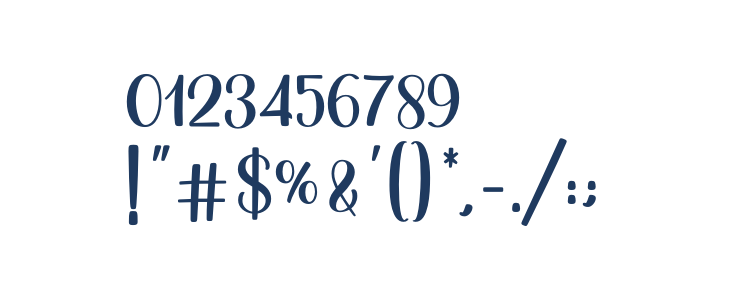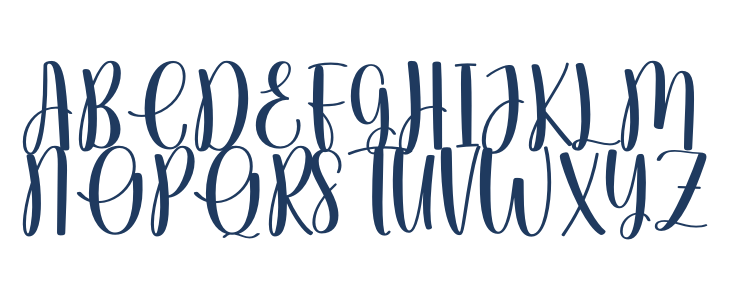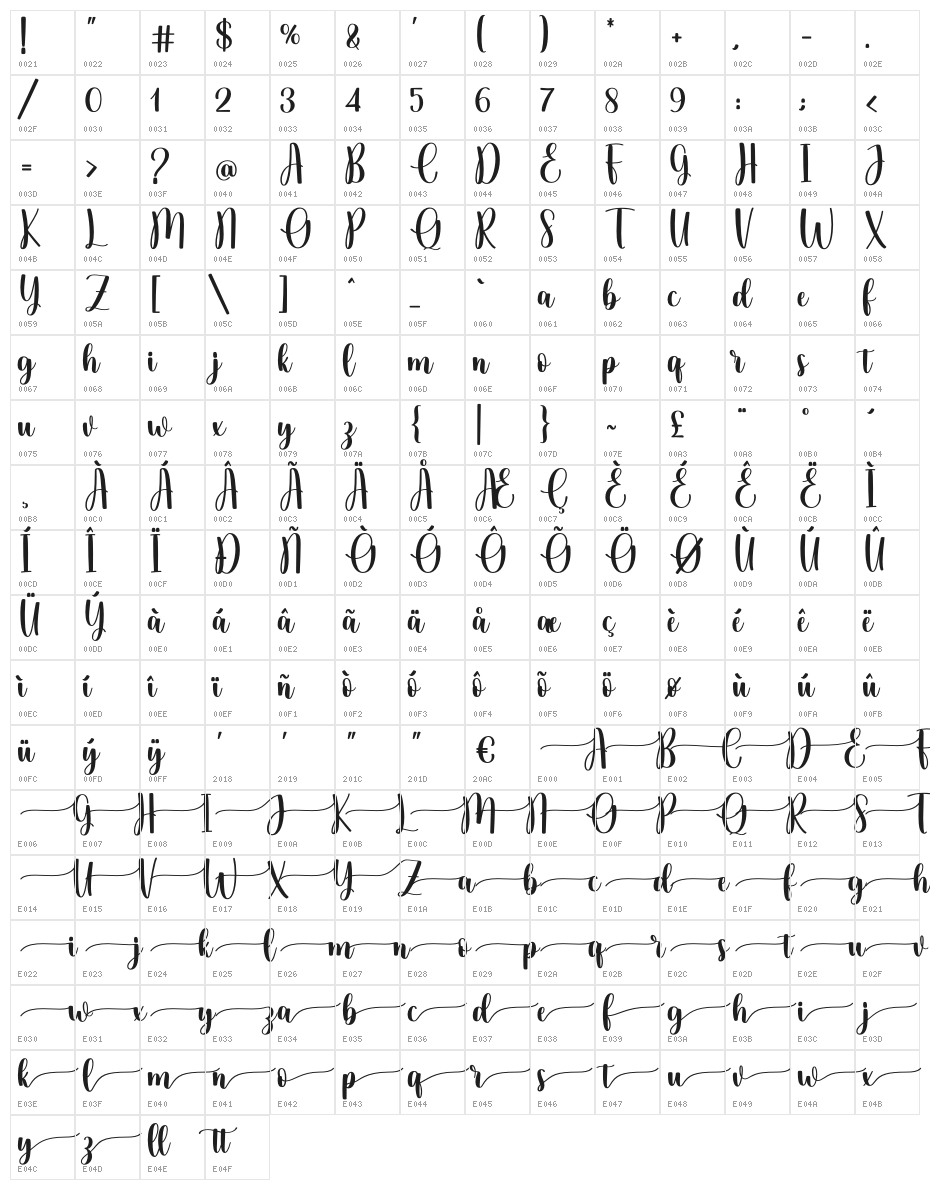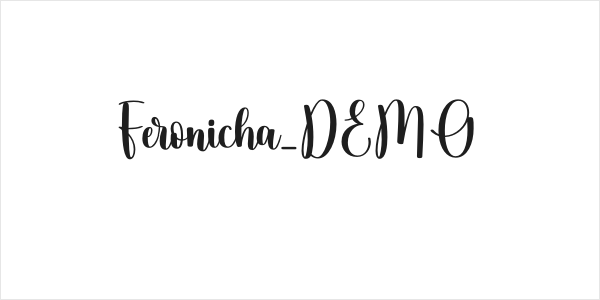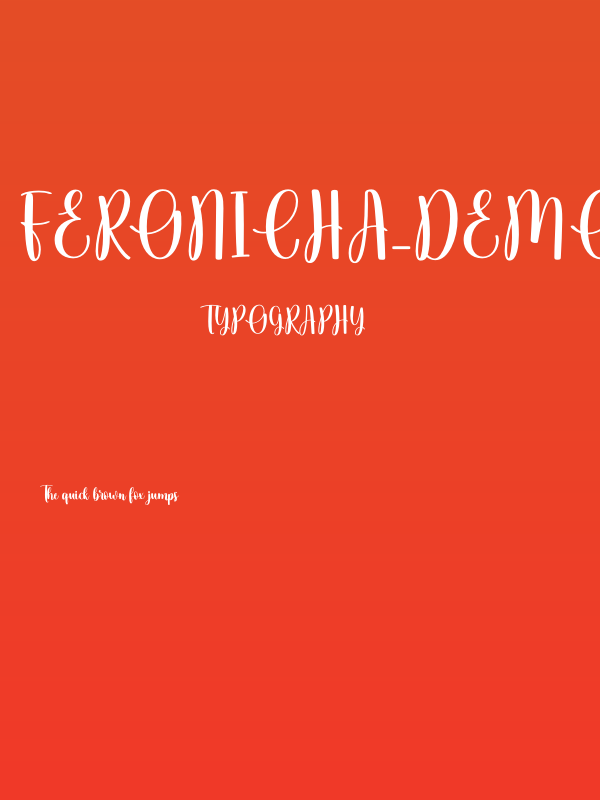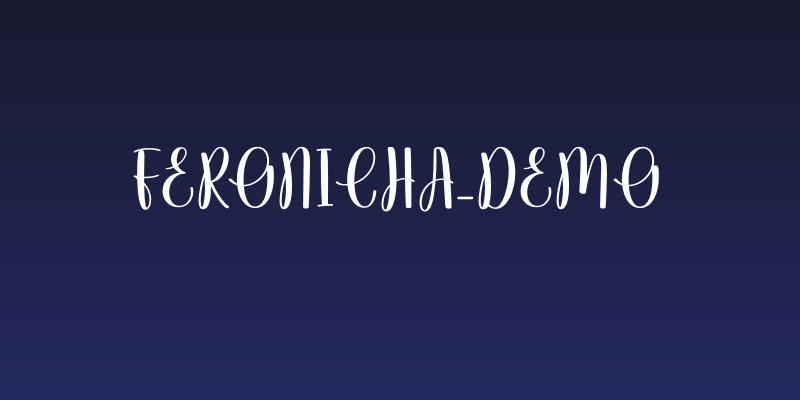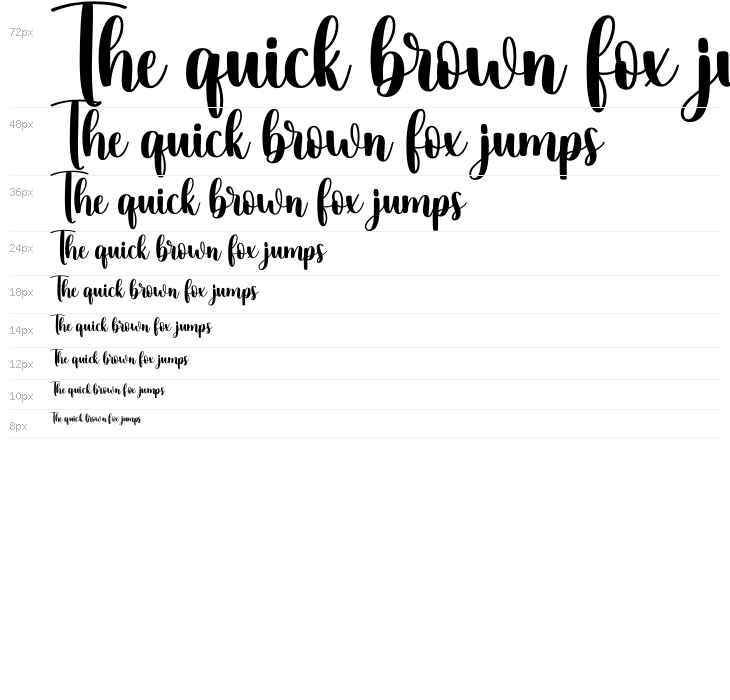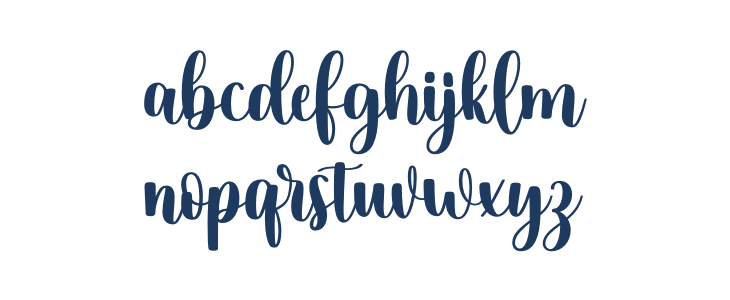
Feronicha_DEMO Font
Feronicha_DEMO Description
A playful, modern script font with bold, flowing strokes and a handwritten feel. The uppercase letters are tall and decorative, while the lowercase letters are rounded and connected, creating a casual yet elegant appearance. The numerals and punctuation maintain the same lively style, making the font cohesive throughout.
| Overall Style | Modern, Decorative, Handwritten |
| Use Case | Logos, Headlines, Invitations, Social media graphics |
| Proposed Projects | Invitations, greeting cards, branding, social media graphics, posters. |